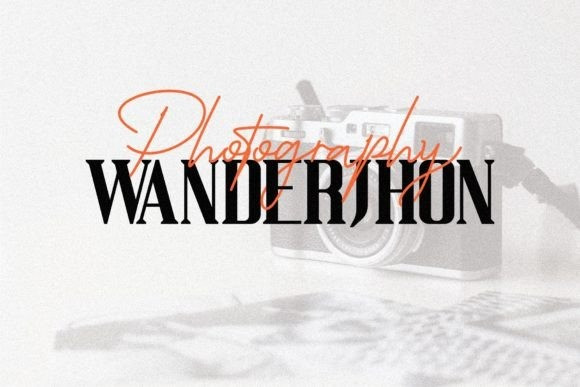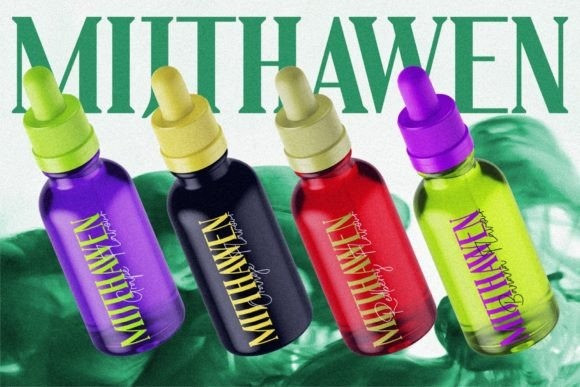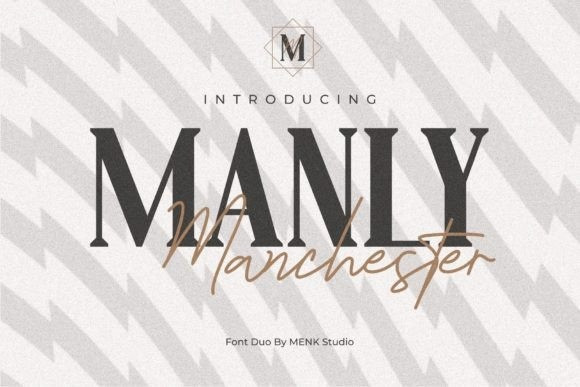
Manly Manchester Font Duo
Manly Manchester Font, is a modern and charming font duo. When combined, these two fonts will add a unique spark to any design project!
Manly Machester perfect for branding projects, logo, wedding designs, social media posts, advertisements, product packaging, product designs, label, photography, watermark, invitation, stationery and any projects.